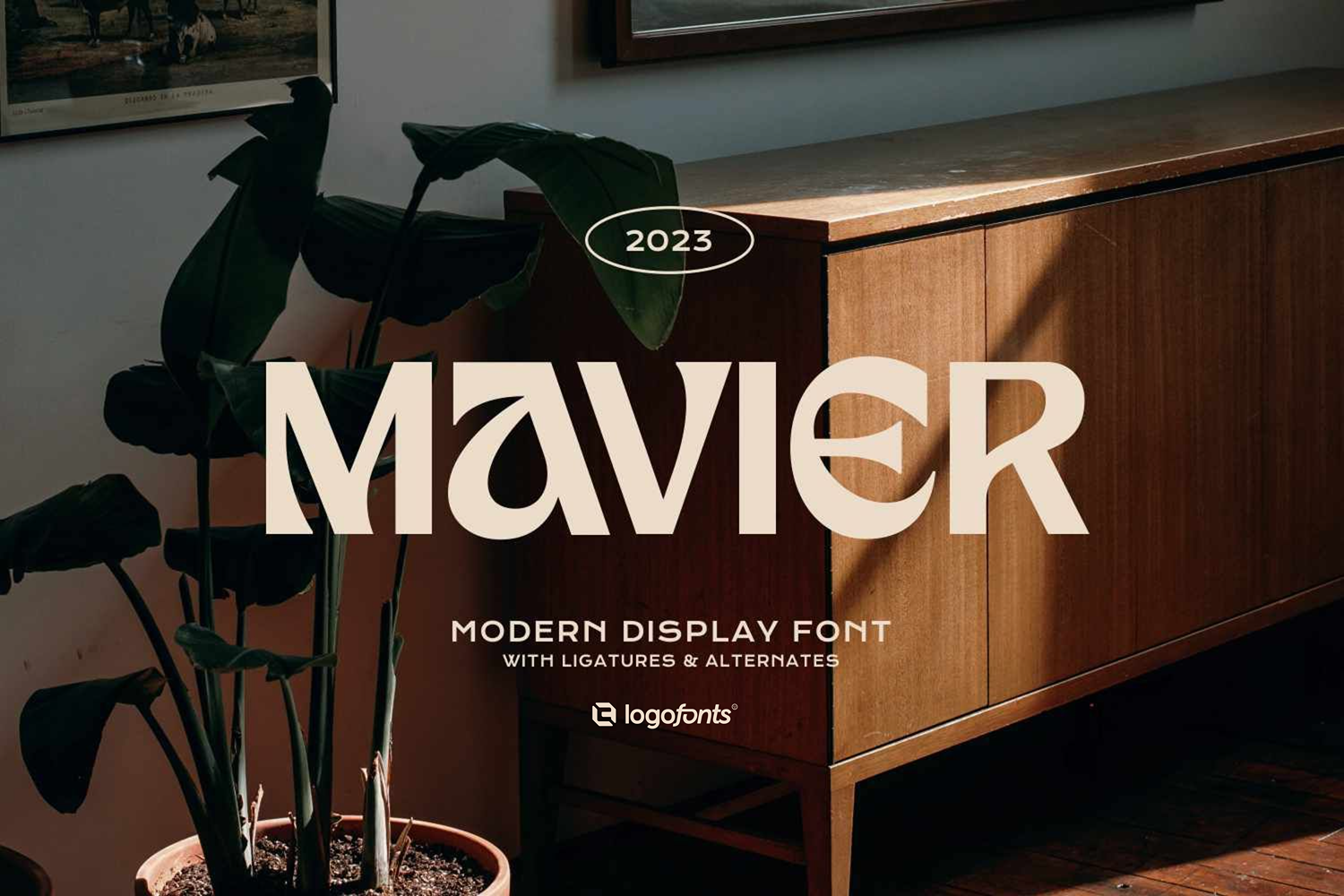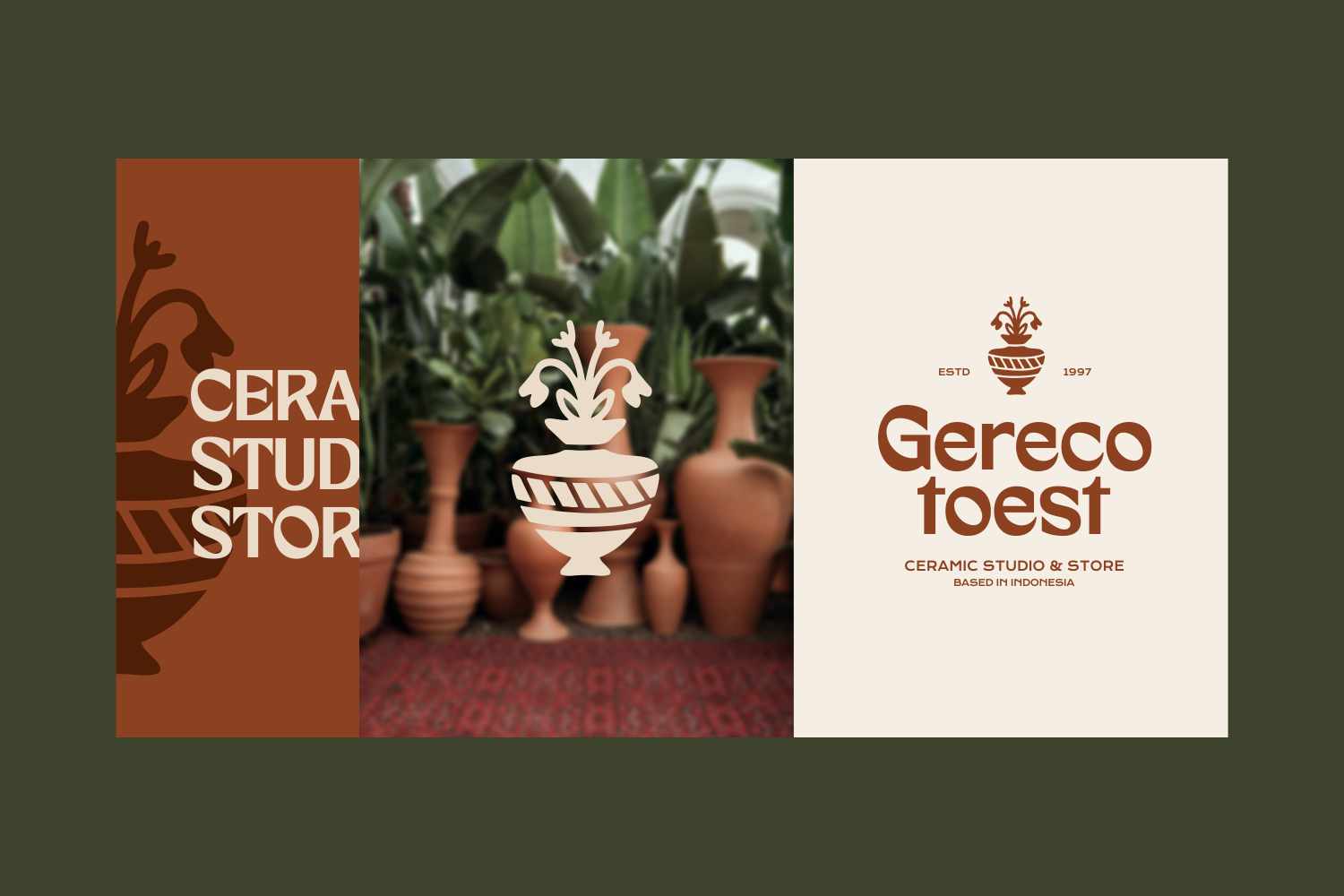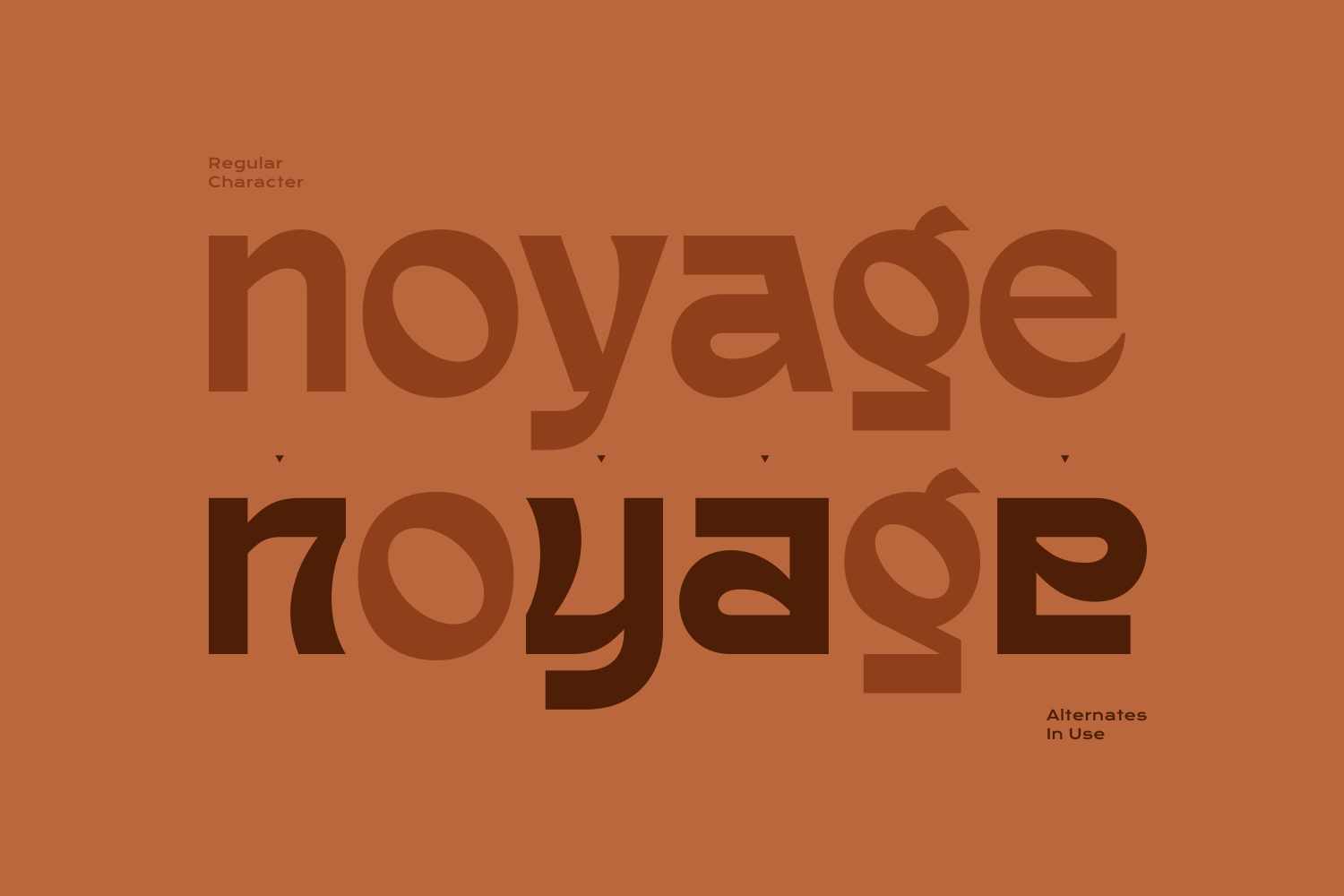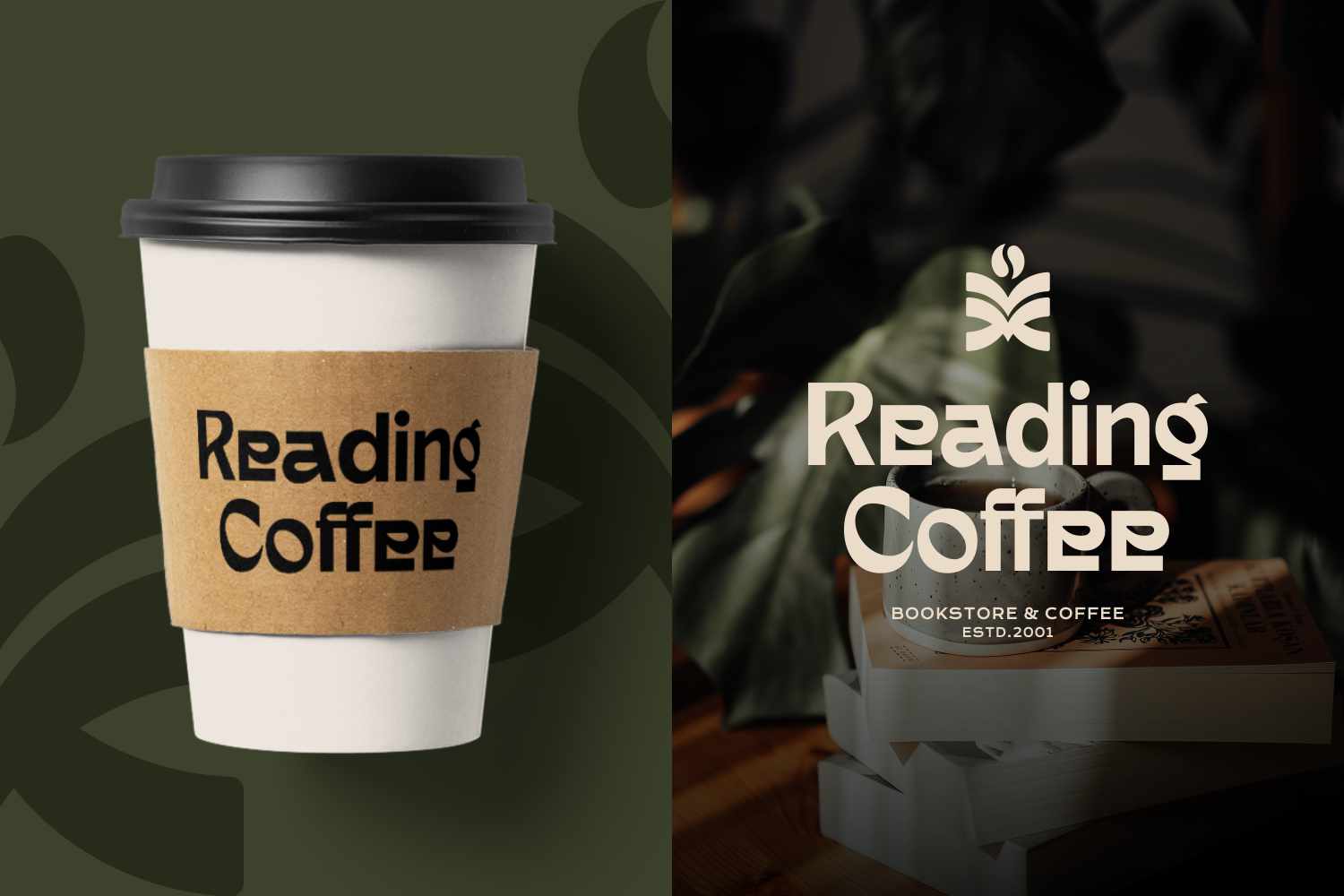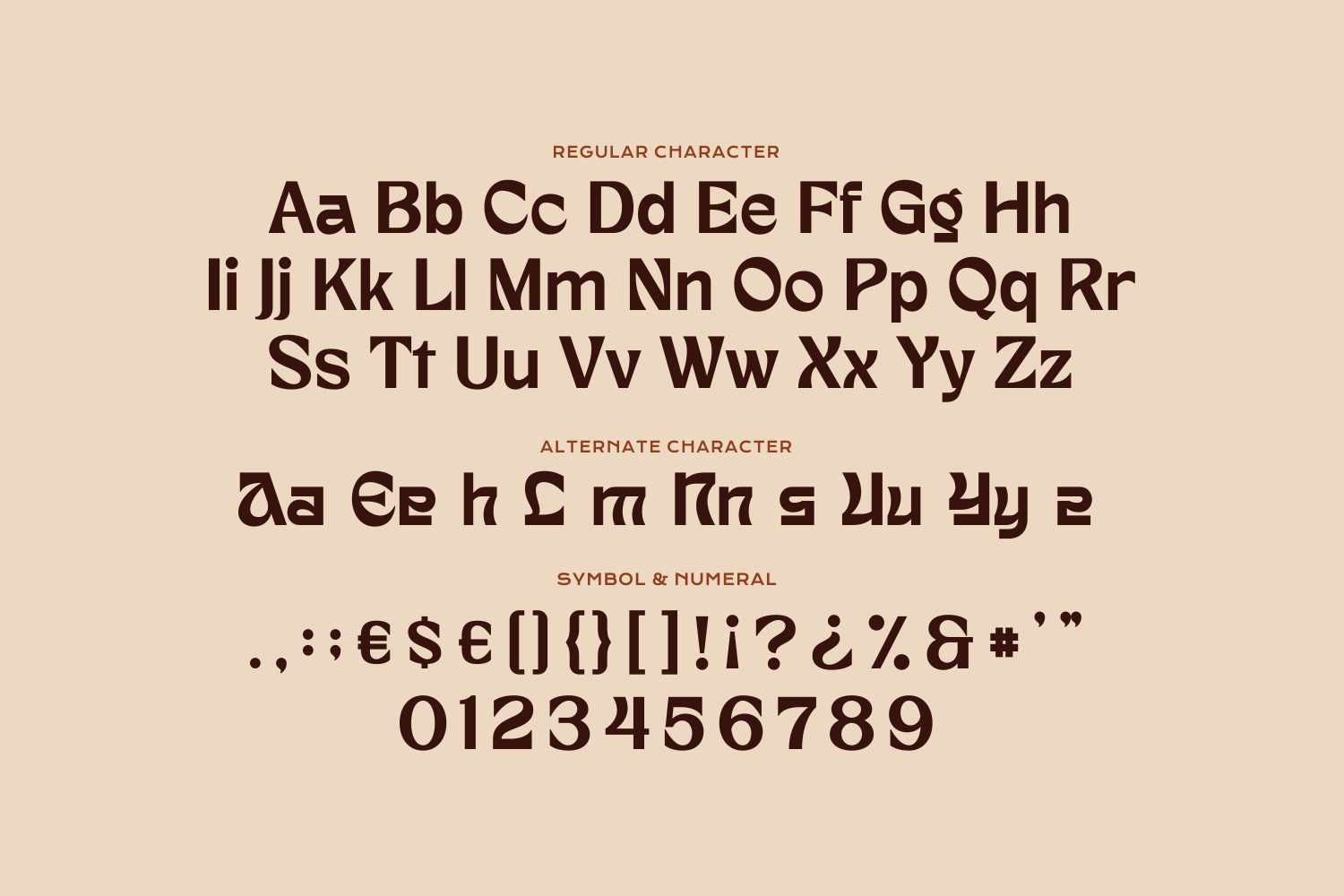
Mavier is a modern display font that blends sharp geometric structure with artistic letterforms and subtle retro charm. Its high contrast between strokes, along with distinctive alternate characters and ligatures, gives it a stylish and elegant personality. Perfectly suited for branding, editorial titles, and lifestyle packaging, Mavier commands attention with its unique curves and contemporary serif-like transitions.
Ideal for creative projects seeking a refined yet experimental typographic voice, Mavier performs beautifully in upscale logos, cafe identities, ceramic stores, or fashion visuals. With multilingual support and alternate character sets, it offers both functionality and flair — perfect for designers aiming for modern sophistication with a creative twist.